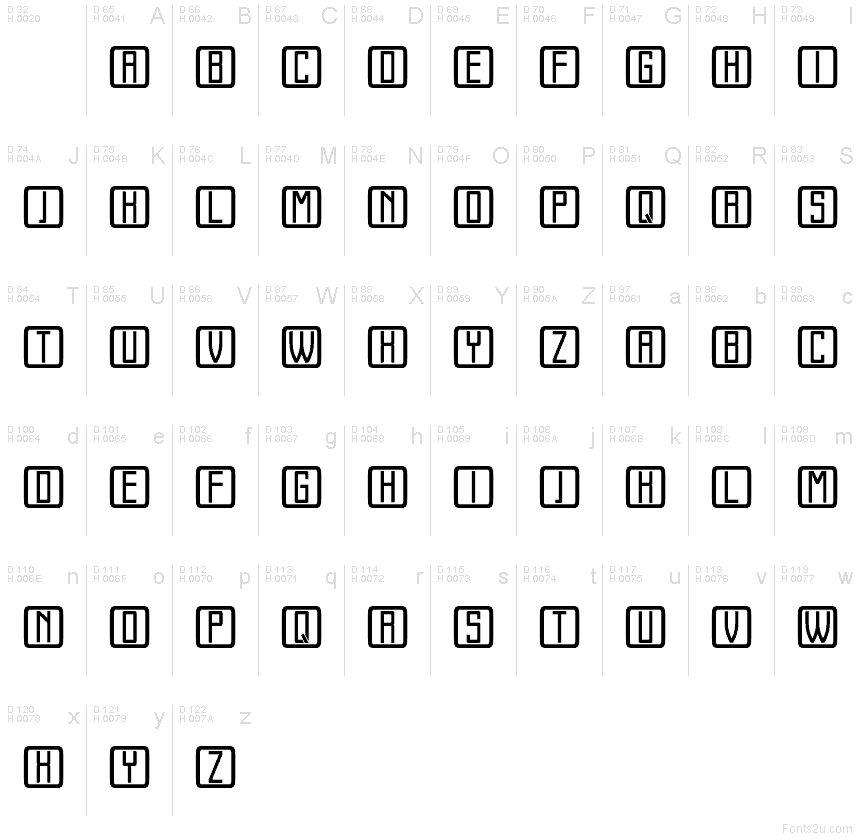
Oberding Condensed Regular
Oberding Condensed font was designed by Vladimir Nikolic. This decorative display font stands out even if used with a single word. It has blocky and geometric characters that have an industrial touch giving the whole design a modernist style. Oberding Condensed leans toward a condensed width, something that further distinguishes its unique look.